10 Best Script Fonts Designs for Your Creative Projects
Unlock the full potential of your visual storytelling with this curated selection of professional Script Fonts. We have handpicked these versatile assets to help you save time while achieving a high-end, bespoke look that instantly elevates any branding, wedding, or social media project. Using the right Script Fonts is the fastest way to add a sophisticated and personal touch to your professional design portfolio.
1. Preppy Writing Script Font
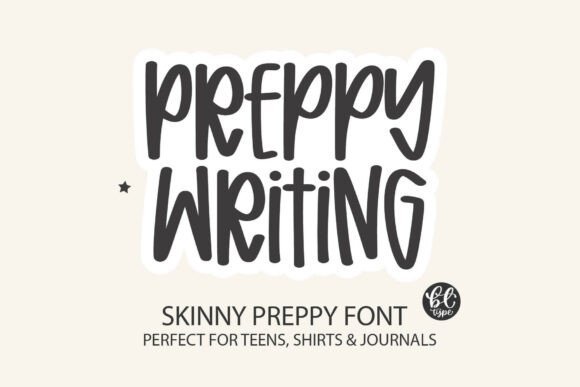
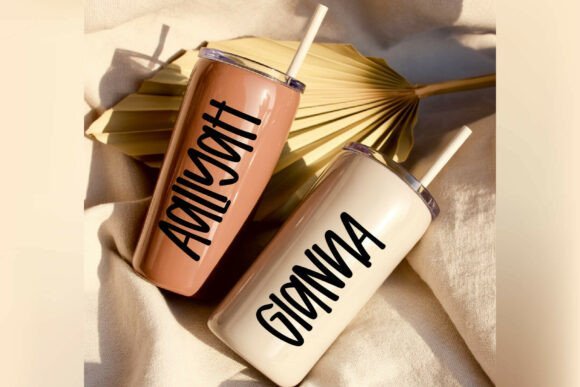
I’m genuinely obsessed with the crisp and scholarly elegance that Preppy Writing brings to any digital canvas. It’s a beautifully balanced typeface that excels in academic branding, sophisticated stationery, or chic lifestyle blogs. If you are searching for Script Fonts that feel organized yet full of personality, this refined font is the ultimate choice for a polished and high-end creative look.
2. Flower Honey Script Font
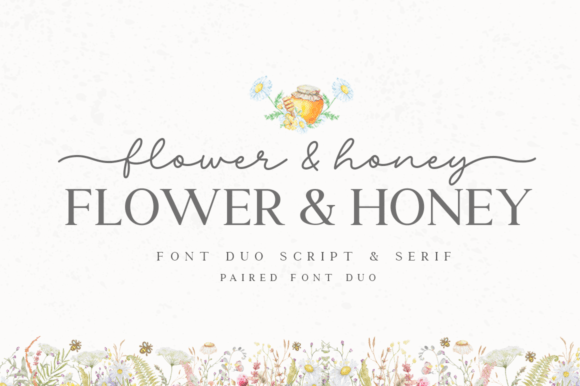
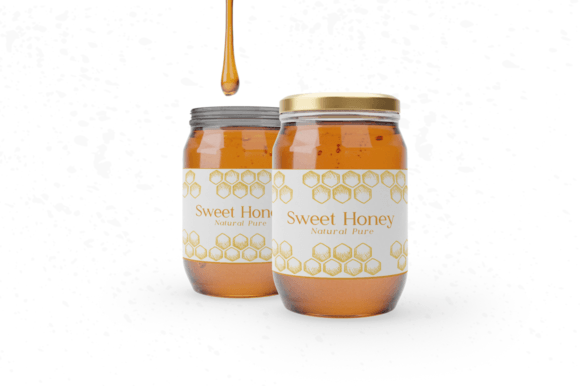
I’m absolutely delighted by the sweet and organic flow of Flower Honey. It has a wonderful rhythmic quality that makes it perfect for branding projects, feminine logos, or even heartwarming wedding invitations. When you need Script Fonts that feel natural, approachable, and filled with a sense of joy, this particular typeface is an incredible asset to add to your design toolkit.
3. Bridgerton Script Font
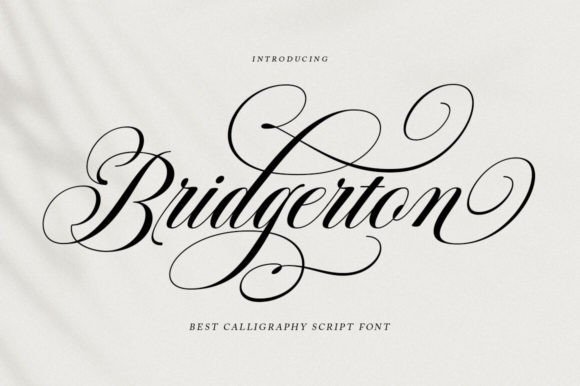
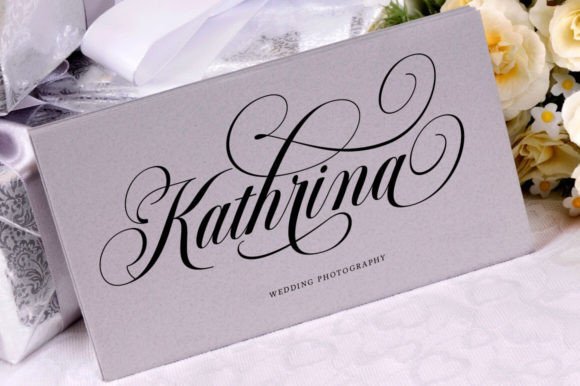
I’m completely captivated by the royal elegance and vintage charm that Bridgerton brings to life. It feels like a piece of classic history, making it the perfect choice for high-end event invitations, luxury branding, or period-style editorial work. If you are looking for Script Fonts that exude prestige and timeless sophistication, this exquisite typeface will elevate your projects to a whole new level.
4. Kayla Script Font
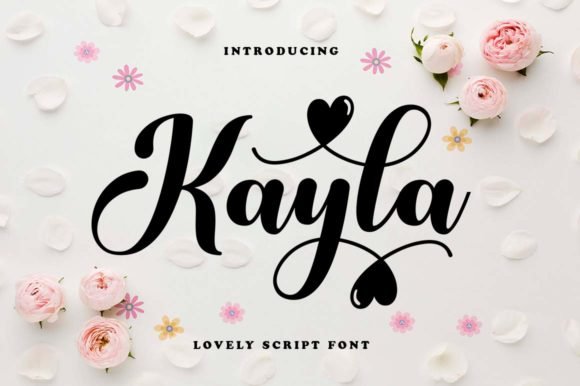
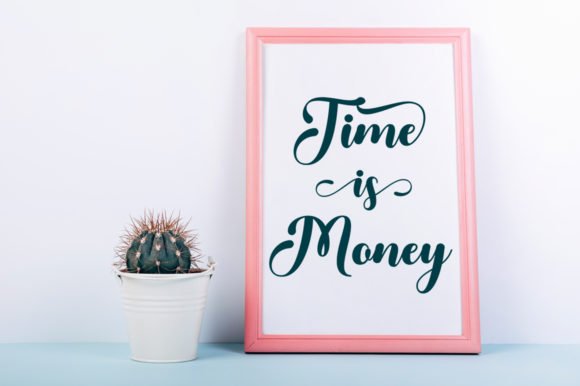
I’m really impressed by the playful and casual energy that Kayla brings to any design project. Its bouncy rhythm and clean loops make it an ideal choice for social media graphics, trendy apparel, or custom gift tags. For those seeking Script Fonts that feel youthful, modern, and incredibly easy to read, this charming typeface is a fantastic way to add a bright and personal touch to your creative portfolio.
5. Winter Script Font
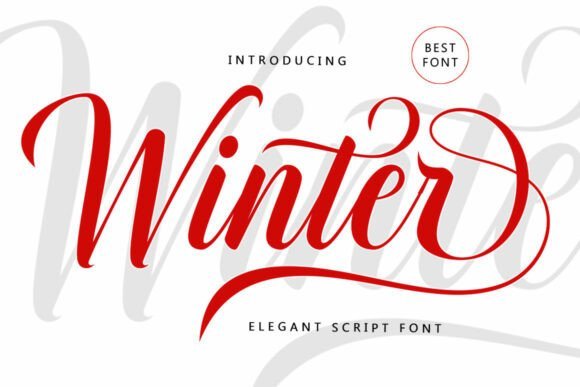
I’m truly inspired by the cozy and whimsical aesthetic that Winter brings to the creative table. Its delicate, handwritten flow is a perfect match for seasonal greetings, winter-themed branding, or elegant home decor prints. When your project requires Script Fonts that feel both festive and professionally crafted, this lovely typeface is a brilliant solution to make your designs feel warm, inviting, and truly special.
6. Princess Script Font
I find Princess to be an absolutely enchanting typeface that brings a sense of magic and royal flair to any layout. Its delicate, flowing curves are tailor-made for fairy-tale themes, children’s book titles, or dreamy party decorations. If you are hunting for Script Fonts that embody grace and a touch of fantasy, this beautiful font will help you create a truly captivating and whimsical atmosphere in your designs.
7. Lilac and Linen Script Font
I’m truly impressed by the effortless sophistication and airy feel of Lilac and Linen. This font strikes a perfect balance between organic textures and modern calligraphy, making it an excellent fit for lifestyle branding, minimalist packaging, or chic editorial layouts. When searching for Script Fonts that offer a high-end, boutique aesthetic, this versatile typeface is a must-have for creating a calm and professional visual identity.
8. School Script Font
I think School is a fantastic choice for anyone needing a clean, legible, and nostalgic handwritten aesthetic. It perfectly mimics a neat cursive style, making it ideal for educational materials, teacher resources, or charming stationery designs. When your project calls for Script Fonts that look authentic and professional yet remain incredibly friendly, this typeface is a reliable tool to bring a personal, classic touch to your work.
9. Chiffoncake Duo Script Font
I’m absolutely in love with the chic and stylish harmony that Chiffoncake Duo brings to the table. This set perfectly combines a playful script with a balanced sans, making it a powerhouse for social media quotes, modern branding, or trendy merchandise. If you need Script Fonts that offer versatility and a high-fashion edge, this duo is a spectacular asset for creating cohesive and eye-catching professional designs.
10. Sunflower Script Font
I’m truly captivated by the radiant and cheerful personality of Sunflower. Its natural, hand-drawn strokes bring a bright, organic energy that is perfect for summer-themed branding, floral shop logos, or sunny lifestyle quotes. If you are looking for Script Fonts that feel warm, authentic, and full of life, this charming typeface is a brilliant choice to make your creative projects feel genuinely welcoming and professional.